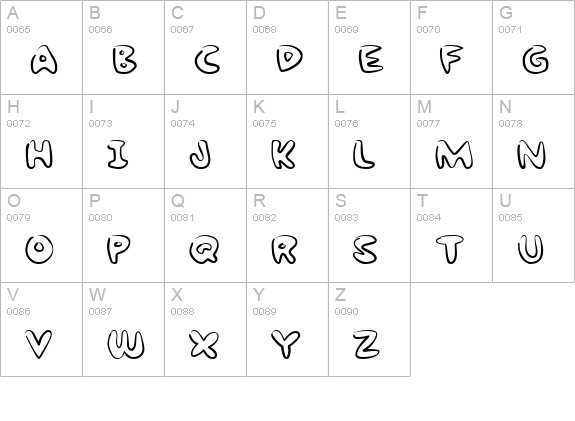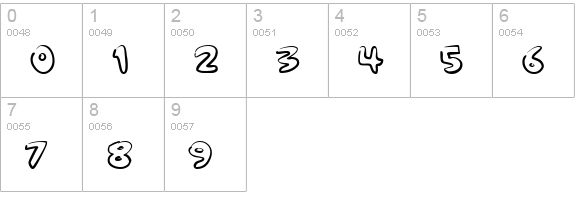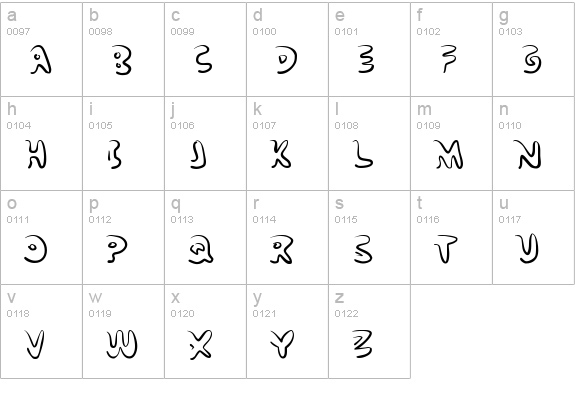
Introducing Bubble Gum RockA font, a playful and energetic typeface that is sure to grab attention with its bubbly and rock-inspired style. This fun and quirky font is perfect for adding a pop of personality to your designs, whether it's for posters, social media graphics, or branding projects. Bubble Gum RockA font features bold letterforms with a hand-drawn feel, making it ideal for projects that call for a youthful and dynamic vibe. The rounded edges and playful curves give this font a whimsical and cheerful appearance that is sure to make your text stand out. Best of all, Bubble Gum RockA font is available for free download at FontsMarket.com, so you can start using this unique typeface in your projects right away. Don't miss out on the opportunity to add a touch of fun and creativity to your designs with Bubble Gum RockA font. Download it now and let your creativity rock and roll!